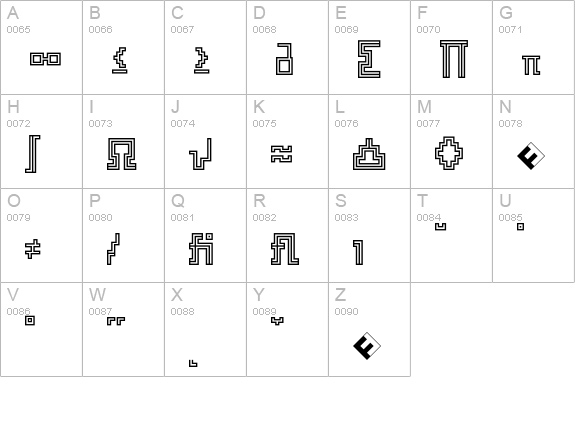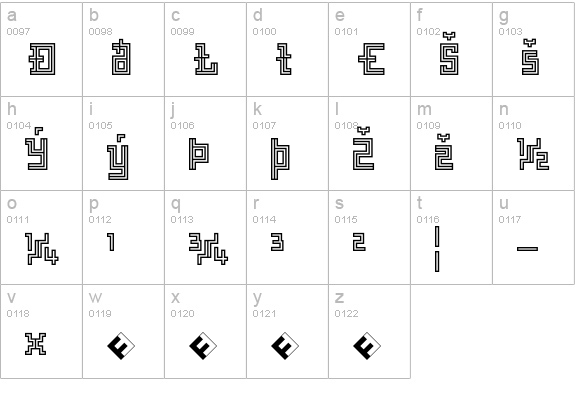
Archian-NormalExpert font is a sophisticated and elegant typeface that exudes professionalism and modernity. Its clean lines and balanced proportions make it perfect for a wide range of design projects, from branding to editorial design. The font features a timeless aesthetic that will elevate any text it is applied to, providing a sense of refinement and sophistication. What sets Archian-NormalExpert font apart is not only its striking design, but also the fact that it is available for free download at FontsMarket.com. This means that designers and creatives can easily access this high-quality font without any cost, making it a valuable addition to any font library. Whether you are working on a corporate identity, a magazine layout, or a website design, Archian-NormalExpert font will bring a touch of elegance and professionalism to your project. Download it for free today and elevate your designs with this exquisite typeface.